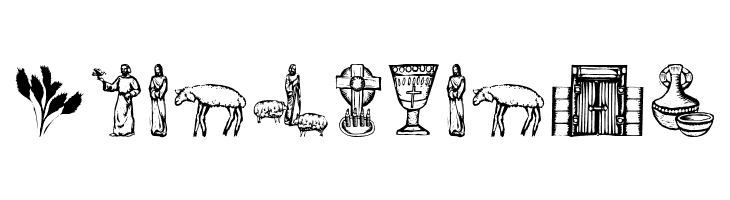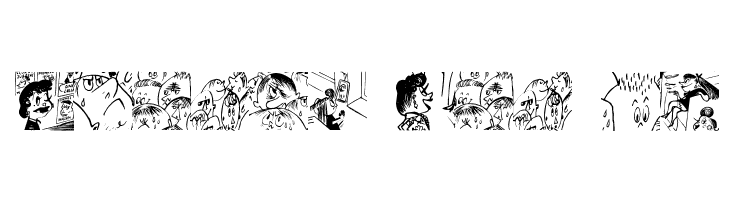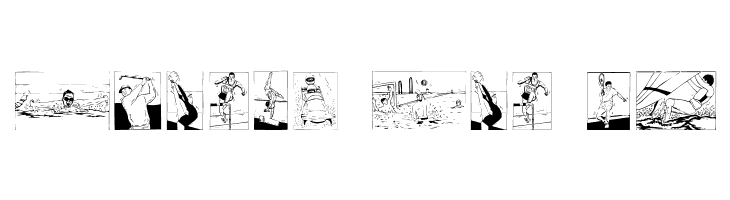
( Fonts by Manfred Klein - manfred-klein.ina-mar.com ) A decorative font with African-inspired symbols and illustrations. डाउनलोड 875 डाउनलोड@WebFont
( Fonts by Manfred Klein - manfred-klein.ina-mar.com ) Illustrative font featuring drama and theater motifs. डाउनलोड 142 डाउनलोड@WebFont
( Fonts by Manfred Klein - manfred-klein.ina-mar.com ) Whimsical weather-themed dingbat illustrations. डाउनलोड 163 डाउनलोड@WebFont
( Fonts by Manfred Klein - manfred-klein.ina-mar.com ) Ornate, pictorial font with devil and mythological illustrations. डाउनलोड 5410 डाउनलोड@WebFont
( Fonts by Manfred Klein - manfred-klein.ina-mar.com ) A playful and whimsical cartoon-style font with detailed illustrations. डाउनलोड 115 डाउनलोड@WebFont
( Fonts by Manfred Klein - manfred-klein.ina-mar.com ) Highly illustrative font composed of religious and spiritual icon symbols. डाउनलोड 181 डाउनलोड@WebFont
( Fonts by Manfred Klein - manfred-klein.ina-mar.com ) Cartoonish, illustrative font with each character formed by comic-style drawings. डाउनलोड 134 डाउनलोड@WebFont
( Fonts by Manfred Klein - manfred-klein.ina-mar.com ) Ornate, hieroglyphic-inspired decorative font. डाउनलोड 141 डाउनलोड@WebFont
( Fonts by Manfred Klein - manfred-klein.ina-mar.com ) Illustrative display font with sports-themed drawings inside each character. डाउनलोड 154 डाउनलोड@WebFont